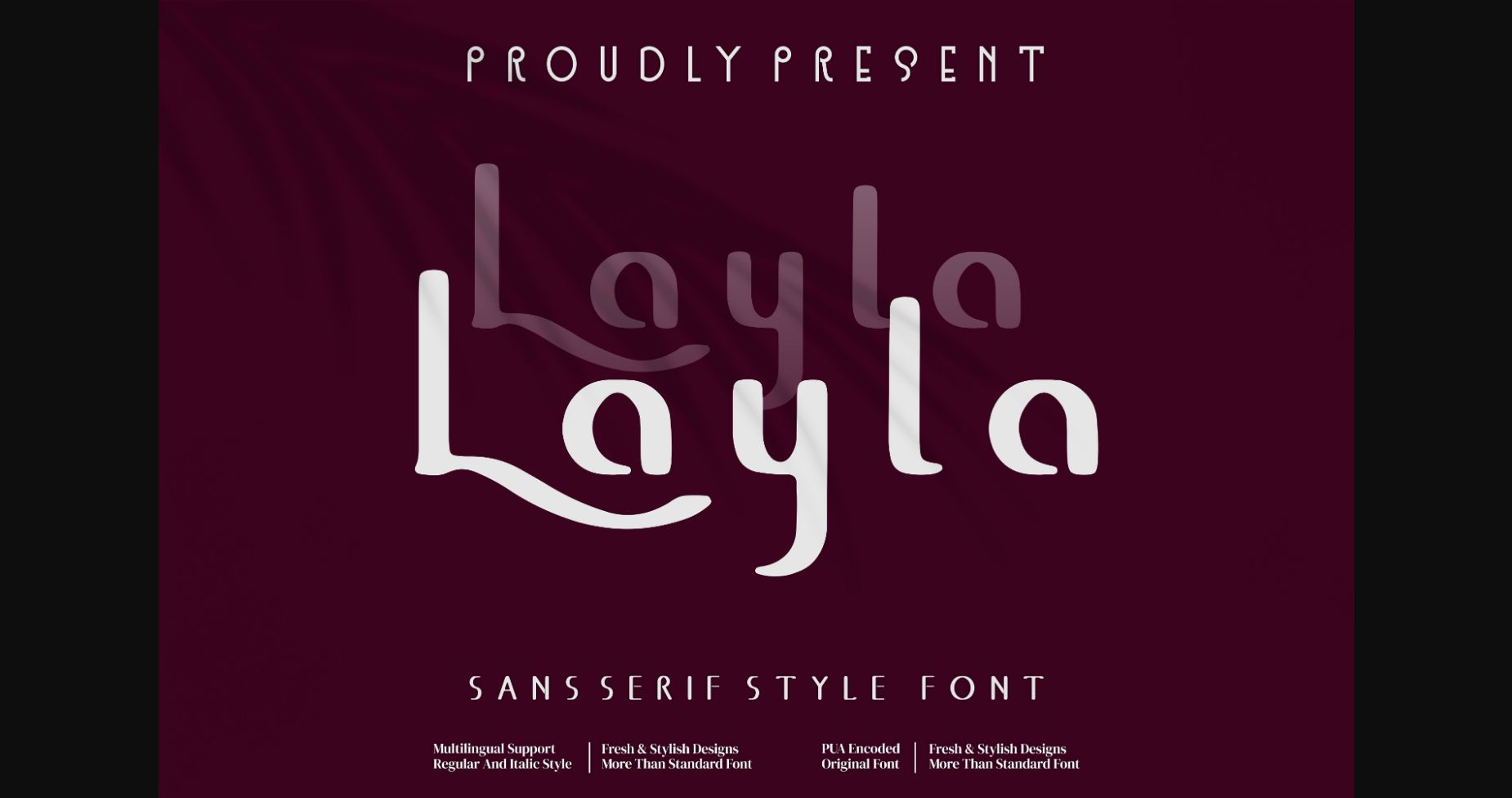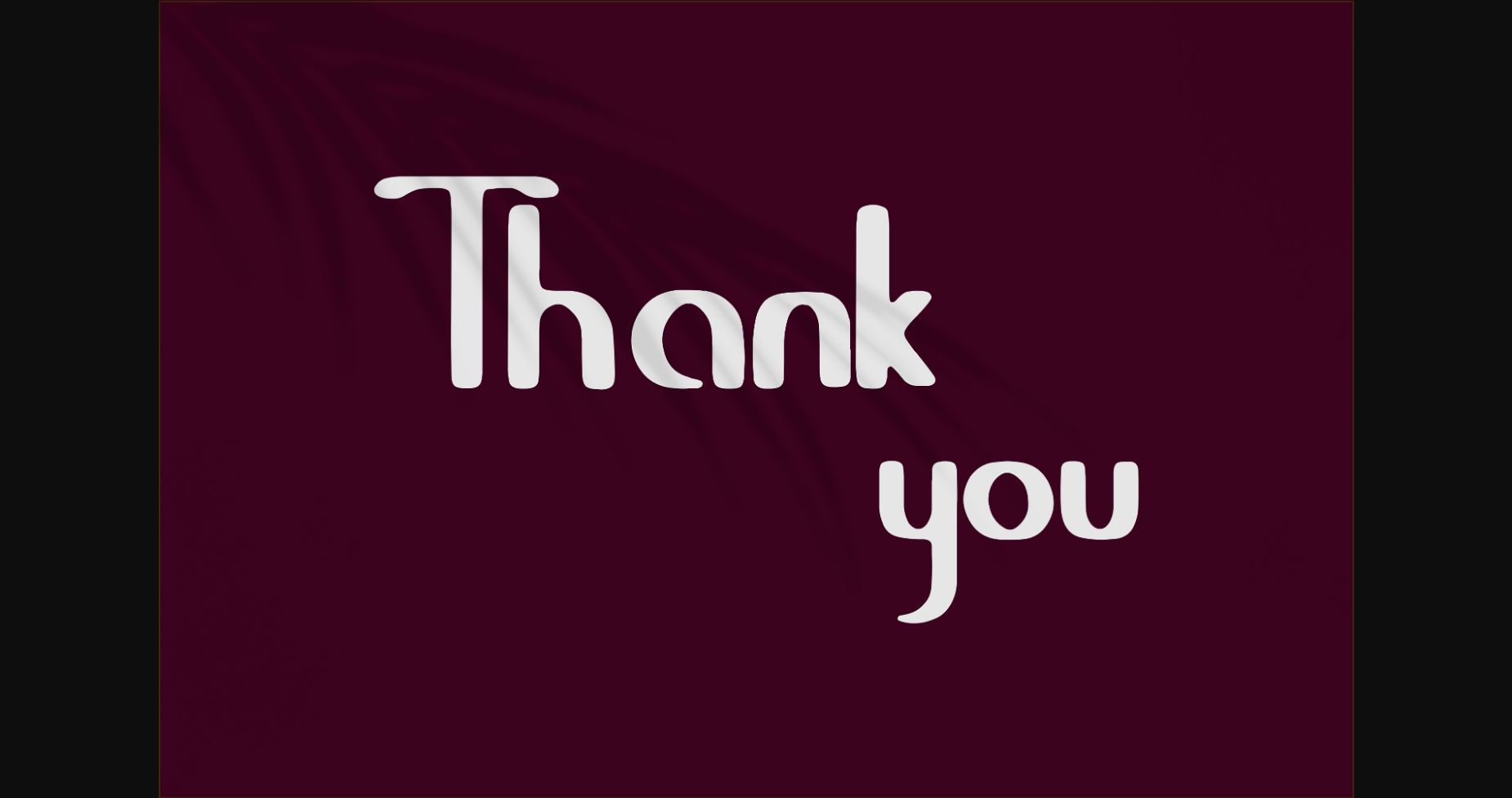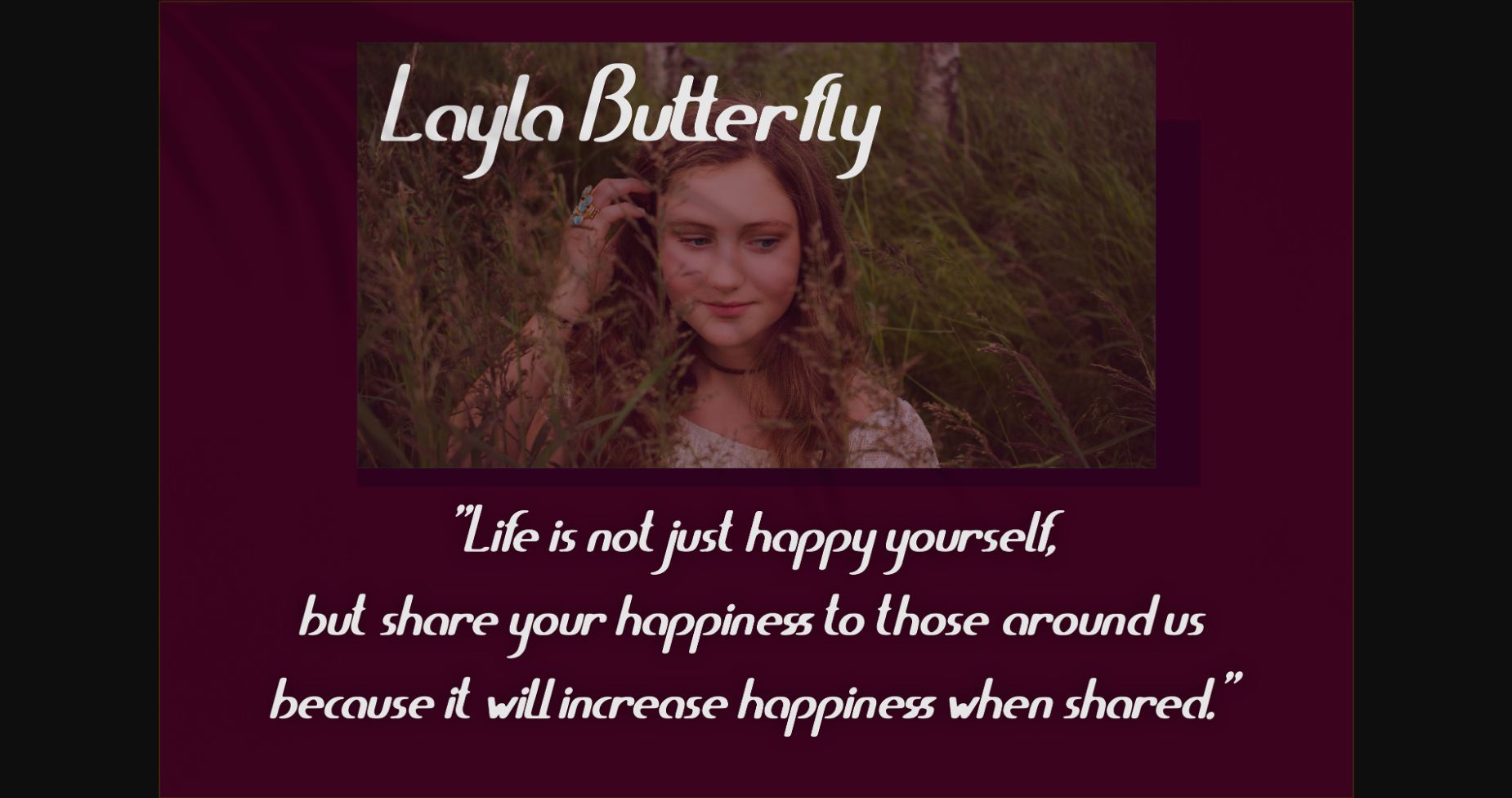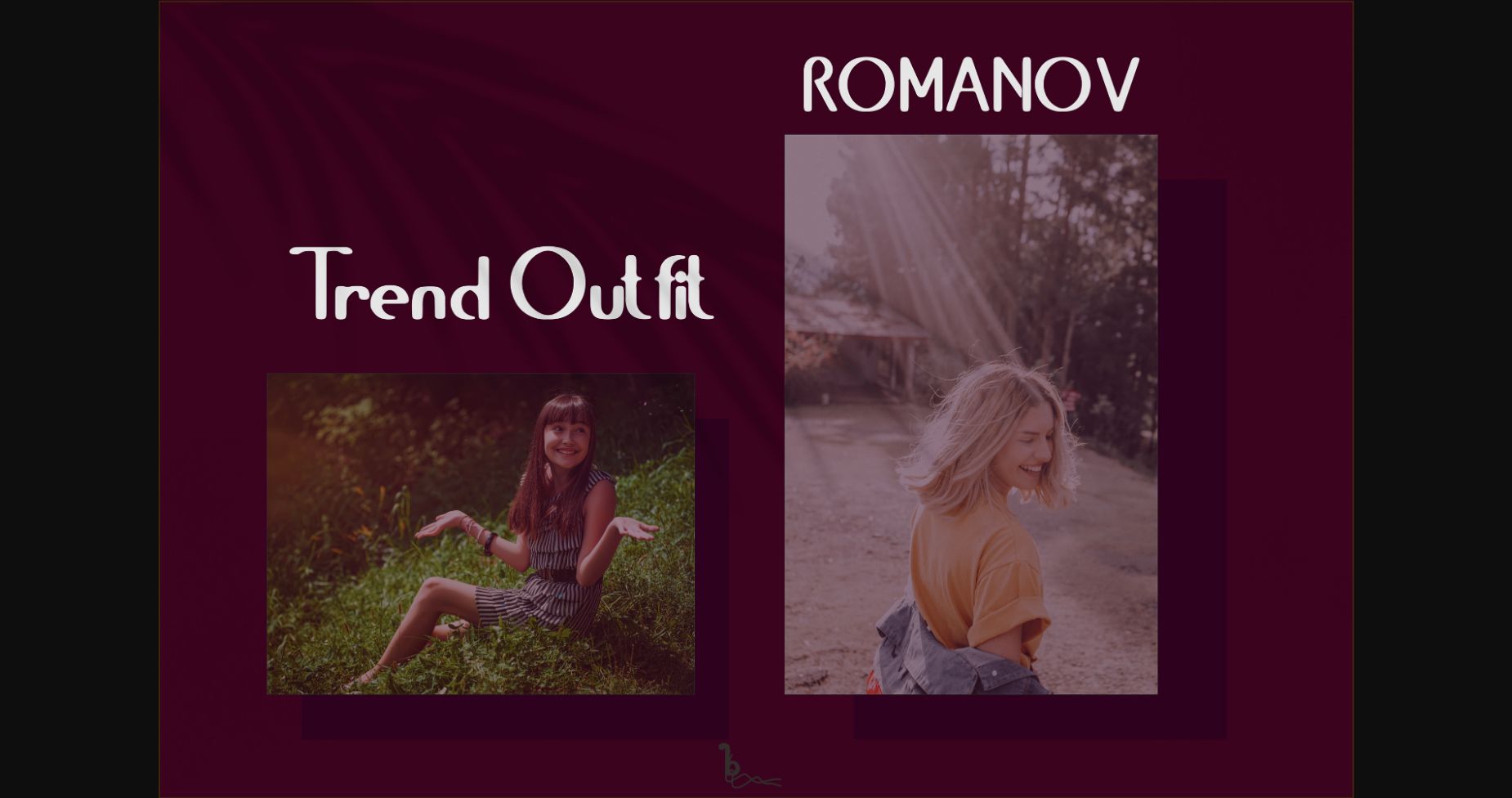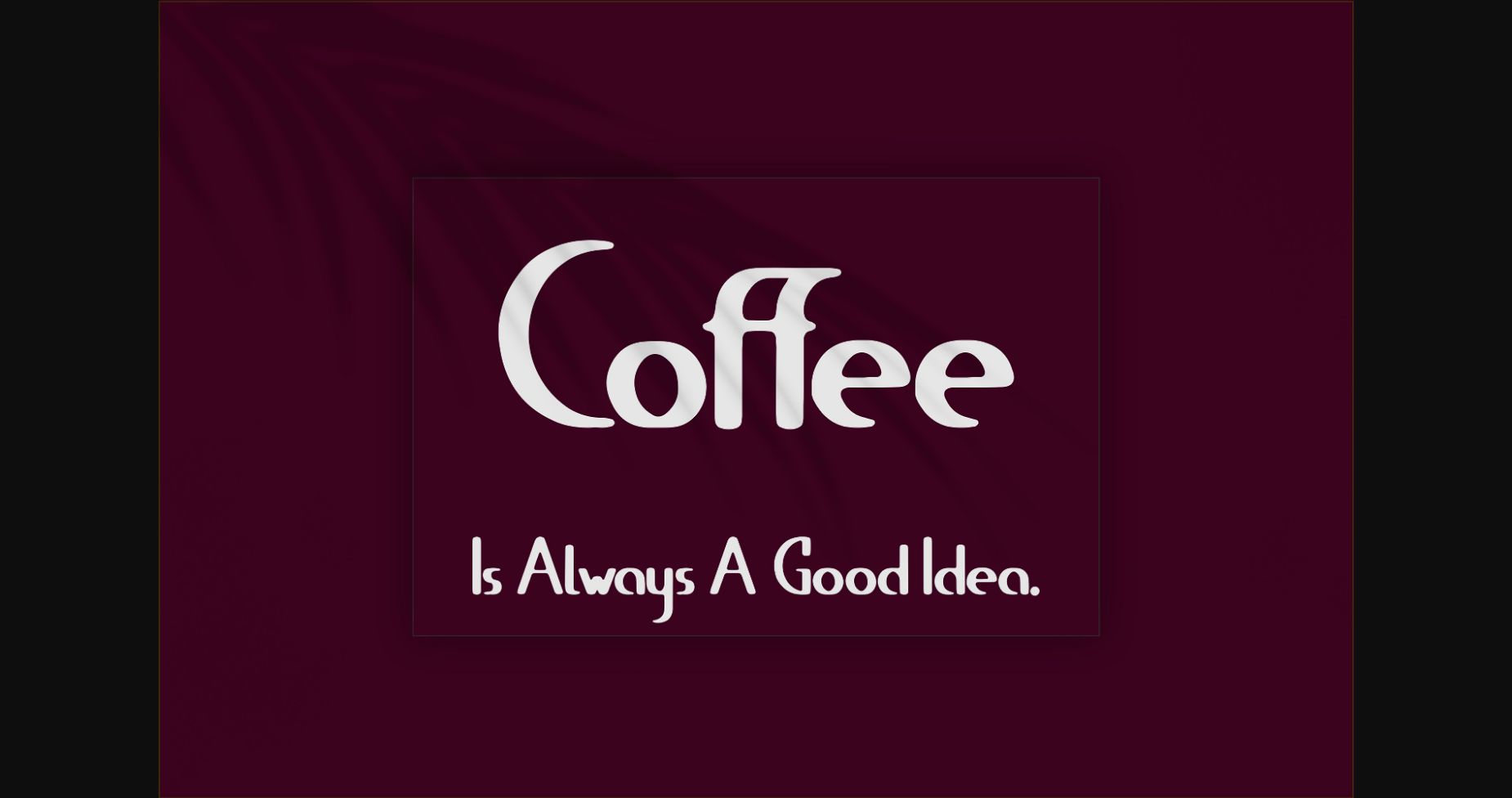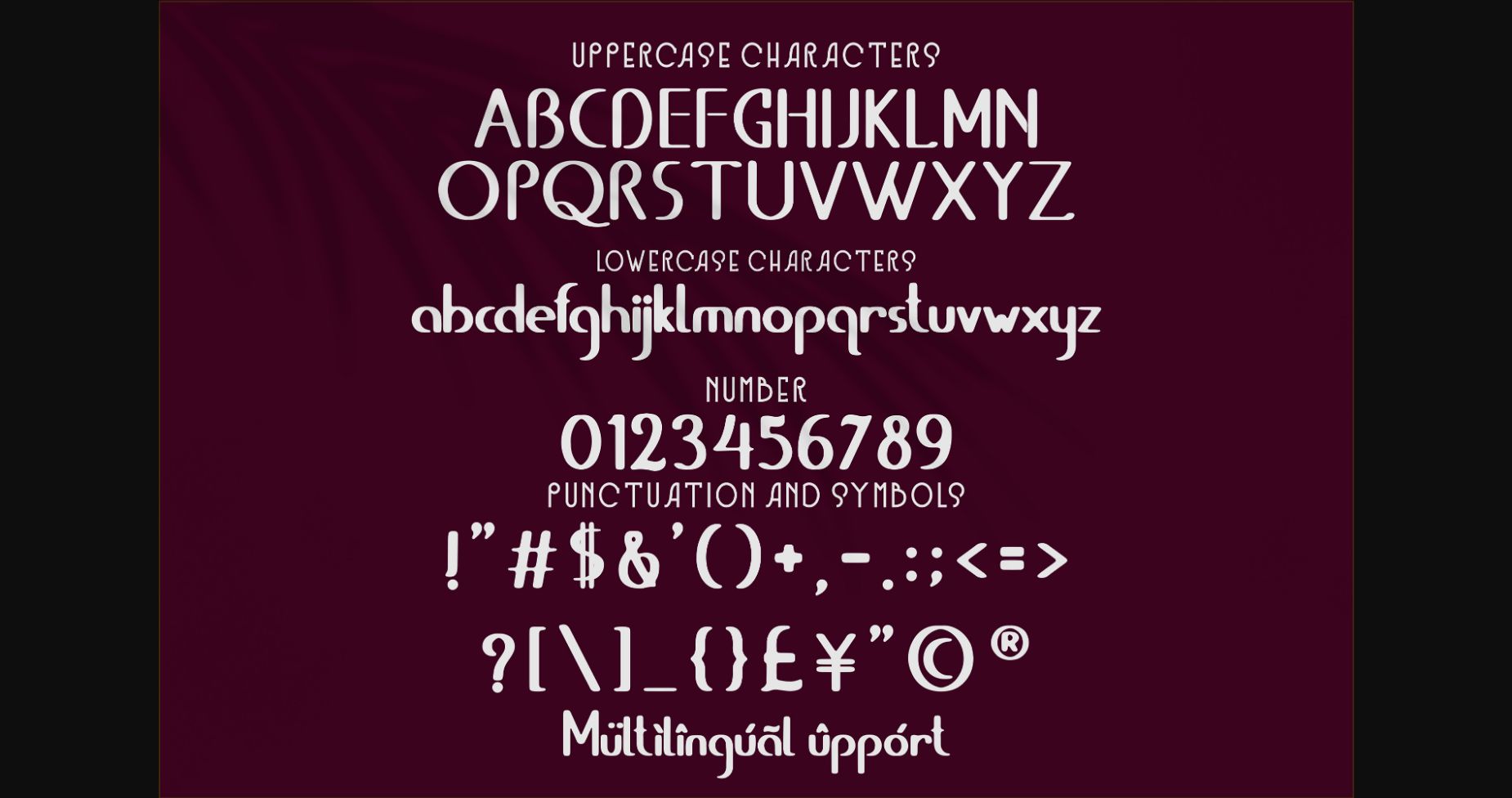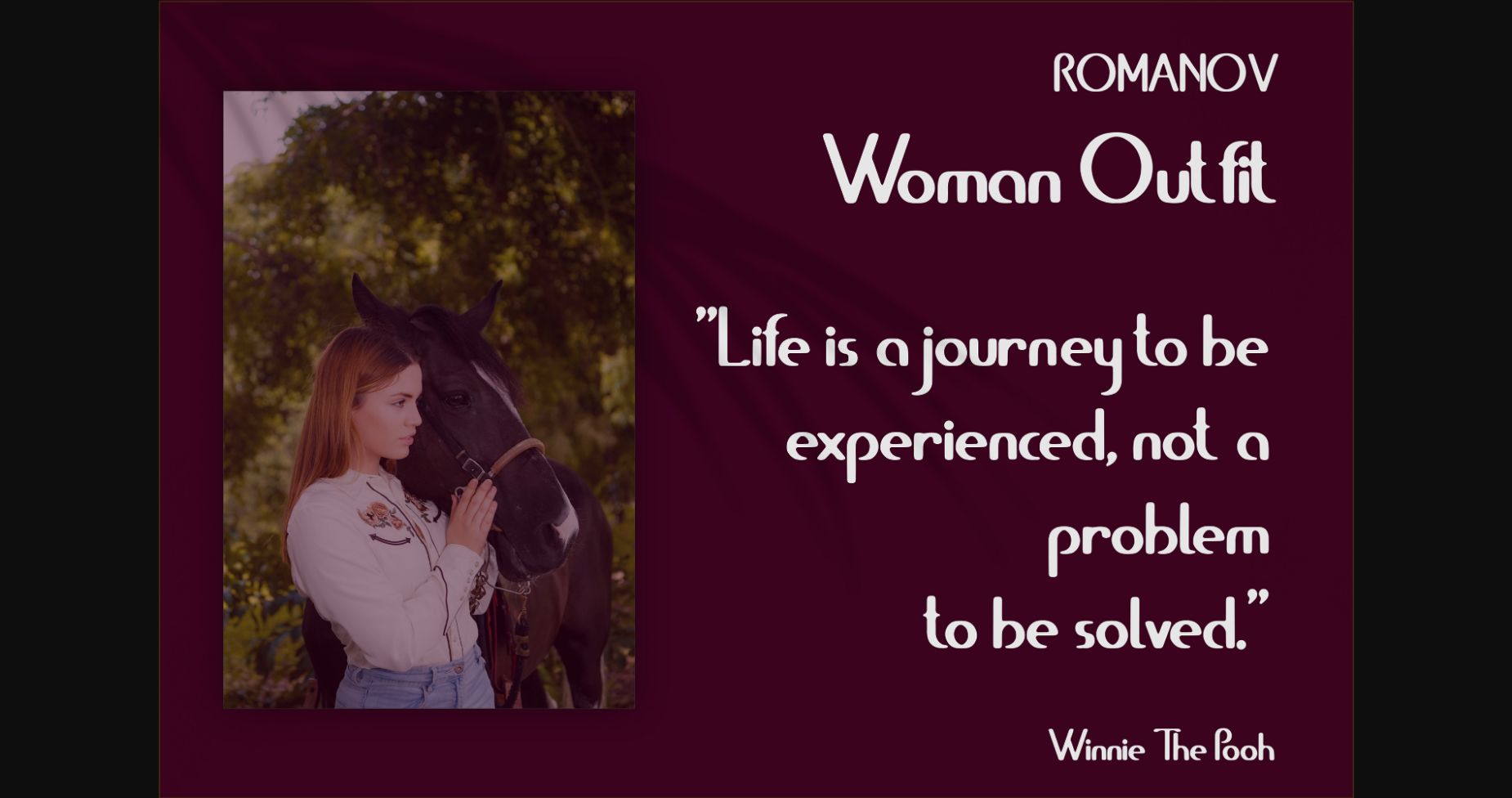
HomeSans Serif FontsLayla Font Sans Serif Fonts Layla Font FacebookXPinterestWhatsApp 1 of 10 ... Layla Font Poster 2... Layla Font Poster 3... Layla Font Poster 4... Layla Font Poster 5... Layla Font Poster 6... Layla Font Poster 7... Layla Font Poster 8... Layla Font Poster 9... Layla Font Poster 10... About Layla Font Layla is a delicate and lovely sans serif font. It works well on formal as well as on informal creations, such as letters, invitations or cards. This font is PUA encoded which means you can access all glyphs and swashes with ease! DOWNLOAD NOW People also explored Lovers Font Magical Harmony Font Bea Glucola Sakura Font Marolyna Font January Font Perihelion BB Summer Vintage Font Lolytta Renda Font 327 0 TagsLaylaLayla Font Previous articleAtlanta Corner FontNext articleStaroff Font LEAVE A REPLY Cancel reply Comment: Please enter your comment! Name:* Please enter your name here Email:* You have entered an incorrect email address! Please enter your email address here Website: Save my name, email, and website in this browser for the next time I comment. Personal Use Free Kitsor Rauttie Personal Use Free Read more about this font Po Beef Personal Use Free Read more about this font Pompom Personal Use Free Read more about this font Cataclysmo Personal Use Free Read more about this font BLOG How to Install and Use Fonts on Windows, macOS, and Web Projects How to Install and Use Fonts on Windows, macOS, and Web Projects Fonts are a crucial part of design and branding. Whether you’re designing a... Fonts That Capture the Spirit of New York City Best Fonts for T-Shirt Design – Top 2025 Picks Free vs Paid Fonts: Why Investing in Premium Fonts Is Worth It